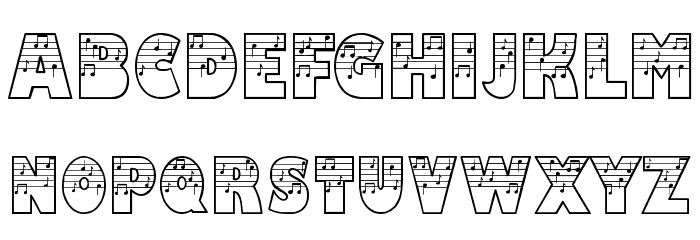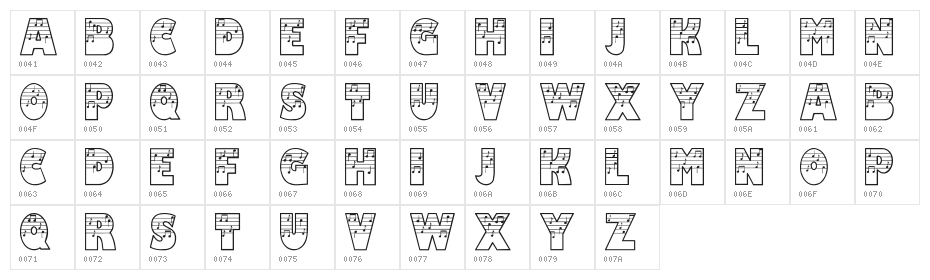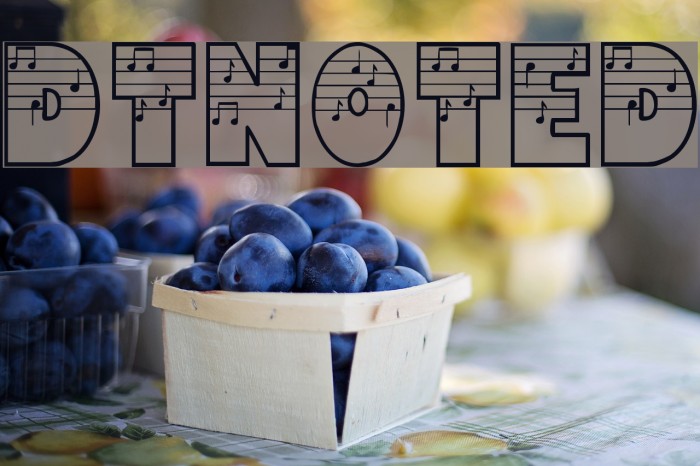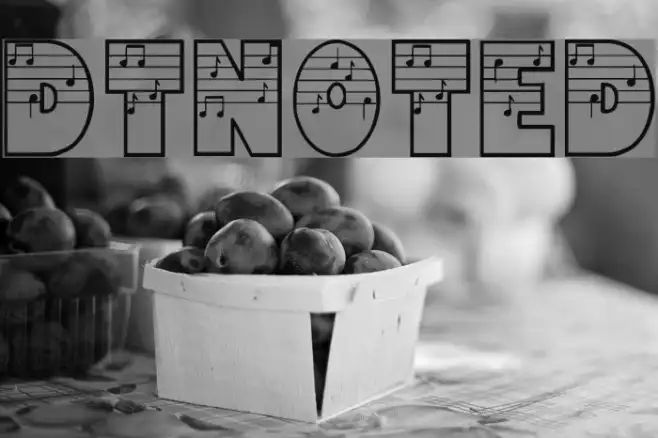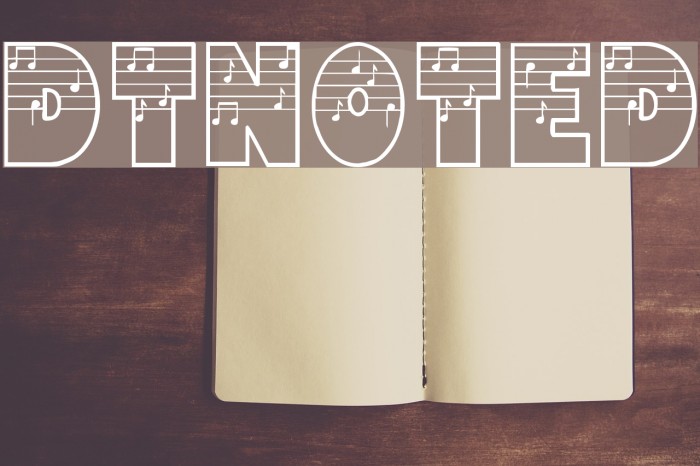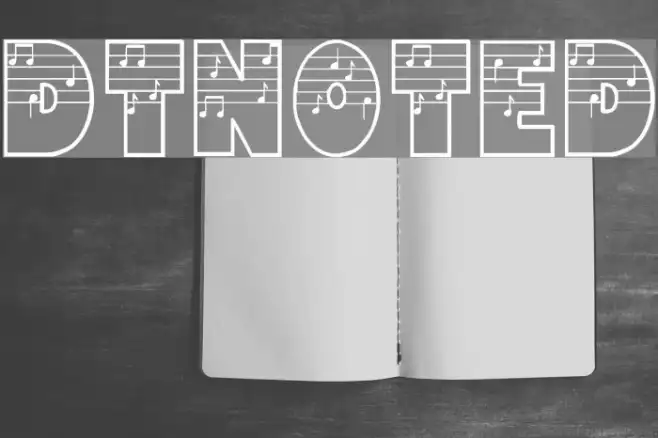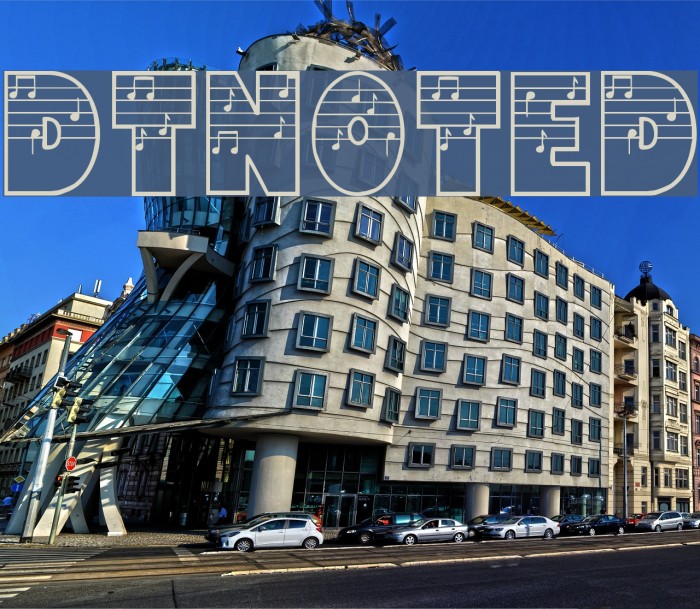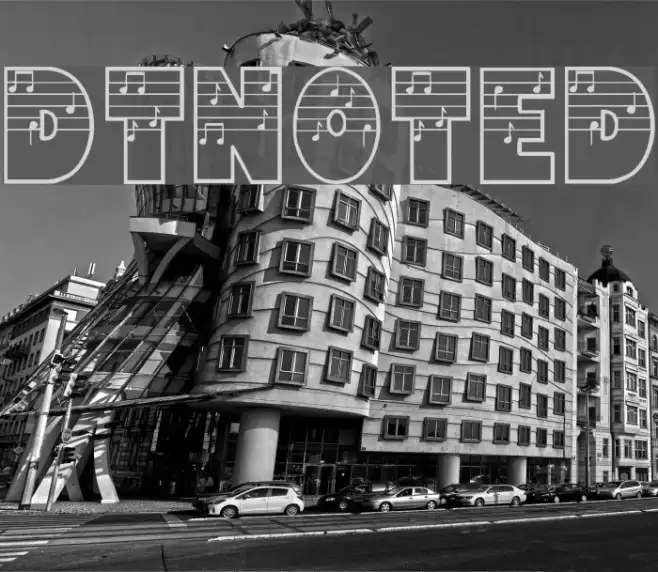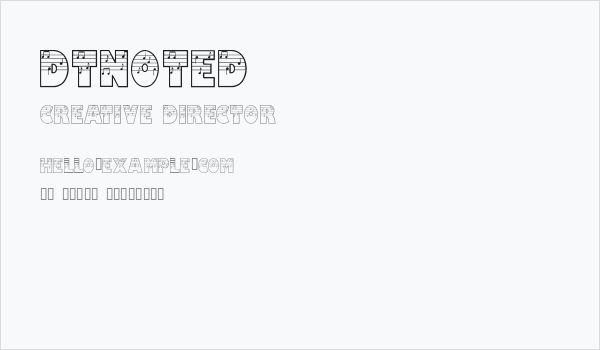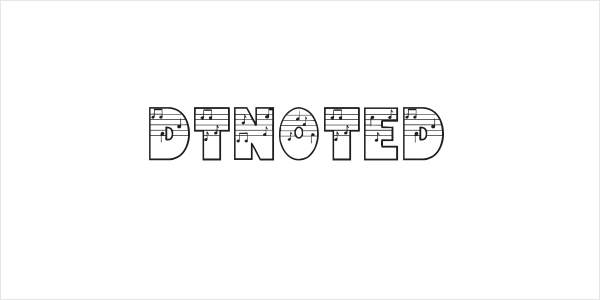
DTNoted Font
DTNoted Description
This font features a bold, decorative style with a unique musical theme. Each character is filled with musical notes and staff lines, creating a visually striking effect. The letters are uppercase and have a blocky, geometric shape that enhances their boldness. The design is highly detailed, with the musical elements intricately woven into the letterforms. This font is perfect for projects that aim to combine text with a musical or artistic theme, offering a playful yet sophisticated look.
| Proposed Projects | Ideal for music-themed posters, album covers, event flyers, and educational materials related to music. |